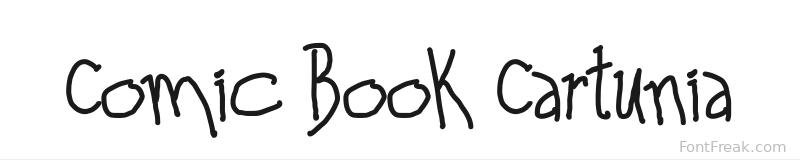
Comic Book Cartunia
About Comic Book Cartunia
Comic Book Cartunia is a distinctive display typeface by Galdino Otten Fonts that captures the essence of comic book aesthetics with a playful twist. This font, categorized as a decorative style, features an informal and lively design that evokes a sense of nostalgia reminiscent of classic Soviet-era comics. Its unique letterforms boast a medium stroke weight with a slight contrast, providing a whimsical yet readable appearance. The irregular spacing between the letters adds to its charm, making it ideal for various creative projects.
The Comic Book Cartunia font free download opens the door to a myriad of applications. It is particularly well-suited for creating engaging comic strips, vibrant movie posters, or eye-catching graphic novels that require a touch of personality. Additionally, it can enhance marketing materials for small businesses, such as playful restaurant menus or fun promotional flyers. Content creators and graphic designers will find this font invaluable for social media graphics, helping to convey a lighthearted message effectively.
Targeting graphic designers, small business owners, and content creators, Comic Book Cartunia is a versatile option that allows for creative expression without sacrificing legibility. Its distinct style appeals to an audience looking to inject energy and life into their designs.
What sets Comic Book Cartunia apart is its ability to blend a playful spirit with professional usability. It stands out not just for its artistic appeal, but also for its versatility across different formats and media. Whether you’re designing for print or digital, this font brings a unique character that can elevate any project, making it a must-have in your typography toolkit.